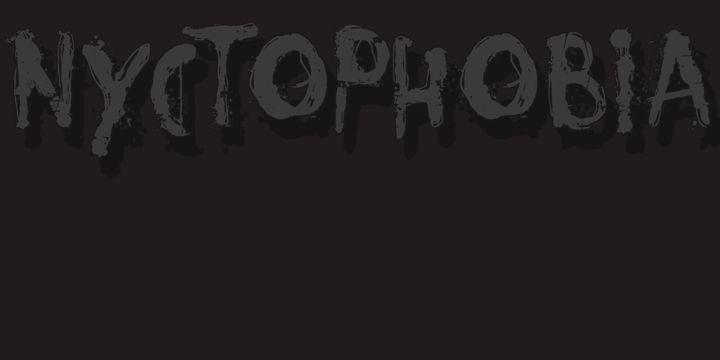
• Nyctophobia
Nyctophobia - a pathological fear of the dark.
Hopefully no fear for this font, as it will add that bit of horror to your projects.
Comes with kerning and the most used accents.